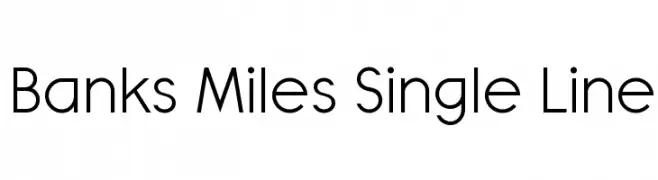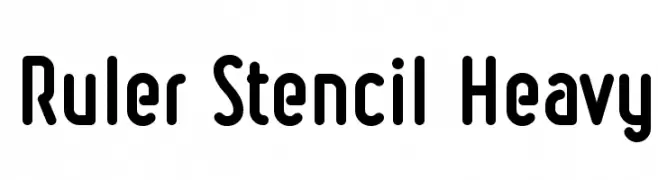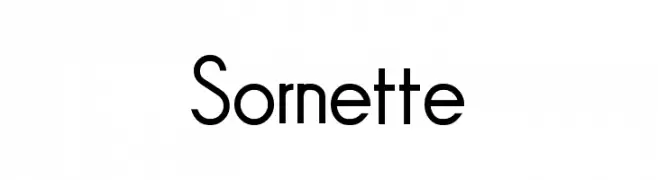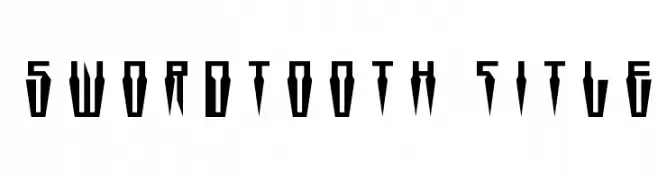
• Phantacon Title
A tall, narrow, and futuristic font with geometric elements and sharp edges.
• Swordtooth Title
A bold, angular font with sharp, blade-like edges and a strong geometric influence.
• Hairline Quadrata
( Insane Machina - Fernando Henrique de Sousa - www.insanemachina.com )
A modern blackletter font with sharp, angular lines and intricate detailing.
• Brush_Of_Anarchy Bold
( Iordanis Passas - http:/ip-art.info )
A bold, edgy font with sharp, jagged strokes and a rebellious style.
• Banks Miles Single Line
( K-Type - Keith Bates - www.k-type.com/ )
A modern, geometric sans-serif font with clean lines and uniform stroke width.
• circlefont
( Lautaro Cabrera - www.lautarocabrera.com.ar )
A modern font with circular motifs and a sleek, minimalistic design.
• Ruler Stencil Heavy
( Levi Szekeres - www.loremipsum.ro )
A bold, stencil-style font with rounded edges and heavy weight.
• Sornette
( Luc Mahler )
A modern sans-serif font with geometric influences and uniform stroke widths.
• Mayonaise-Condensed
( Marina Nunes - cargocollective.com/marinanunes )
A decorative, condensed font with diagonal line patterns in each character.
• Cona Regular
( Marta Coronado - www.behance.net/martacoronadog )
A modern, rounded font with a clean and geometric design.